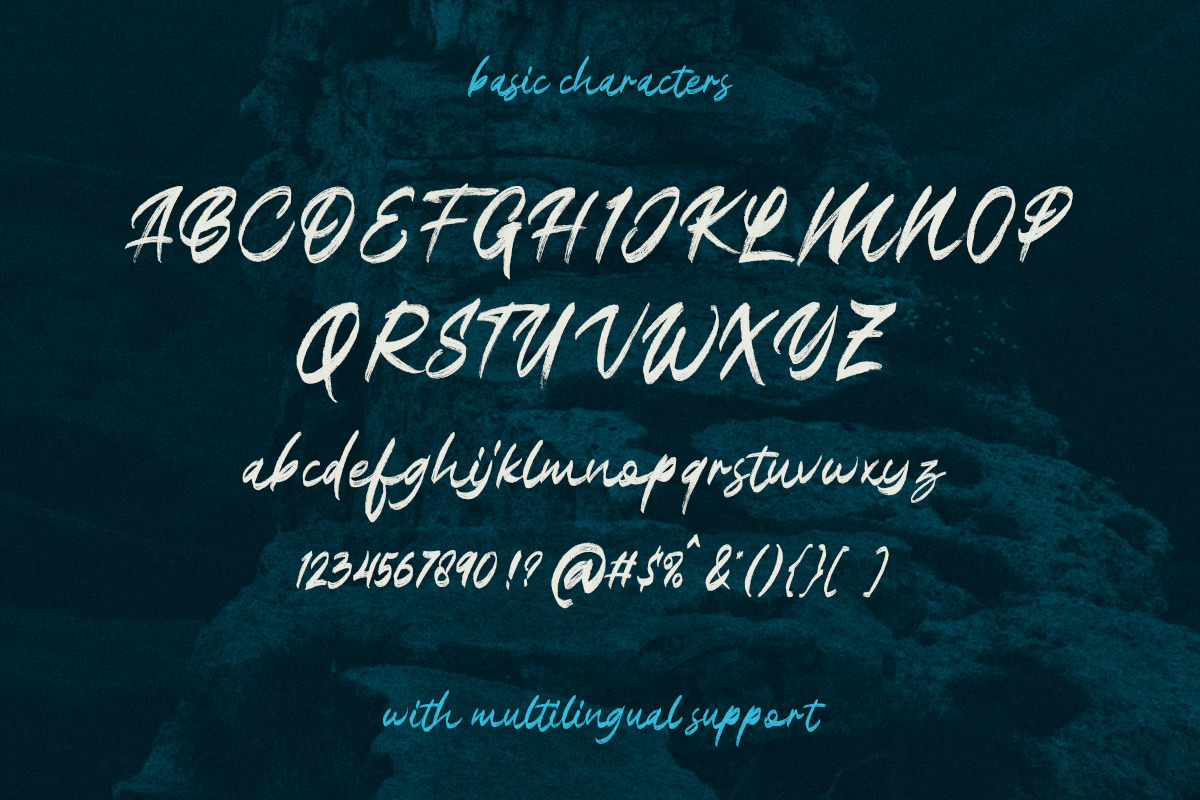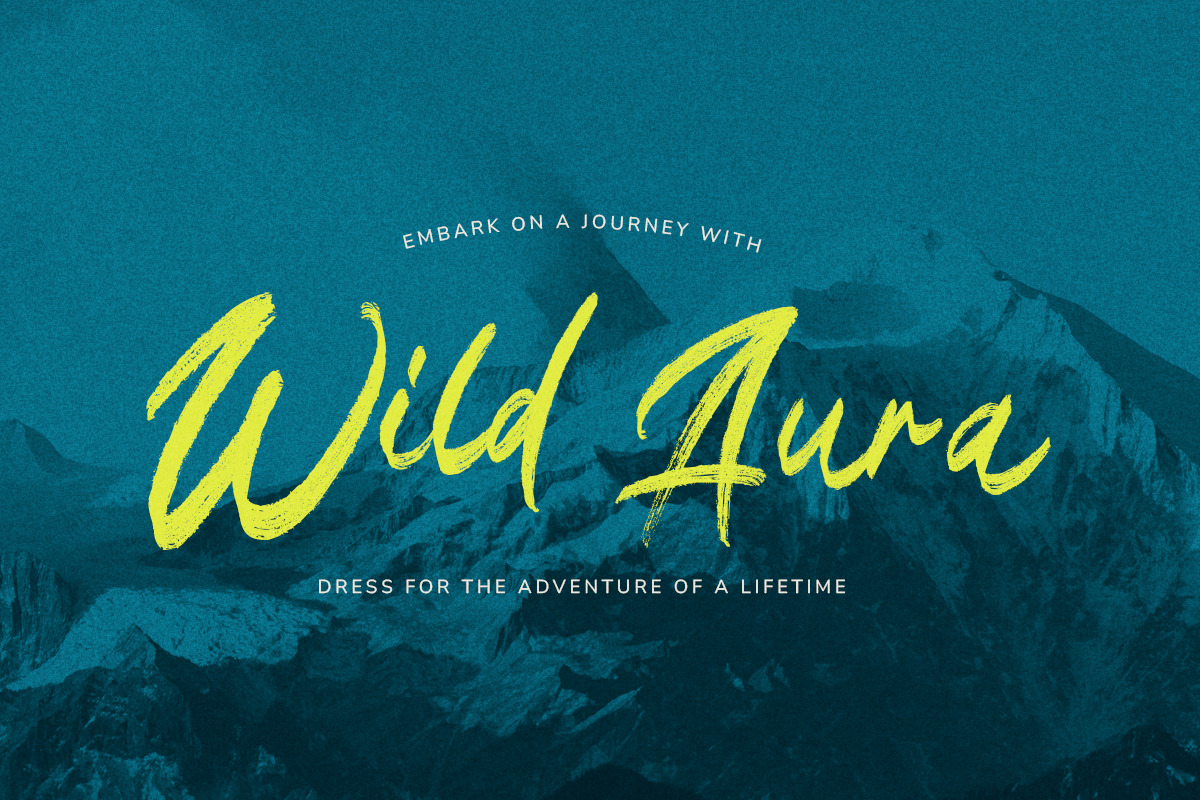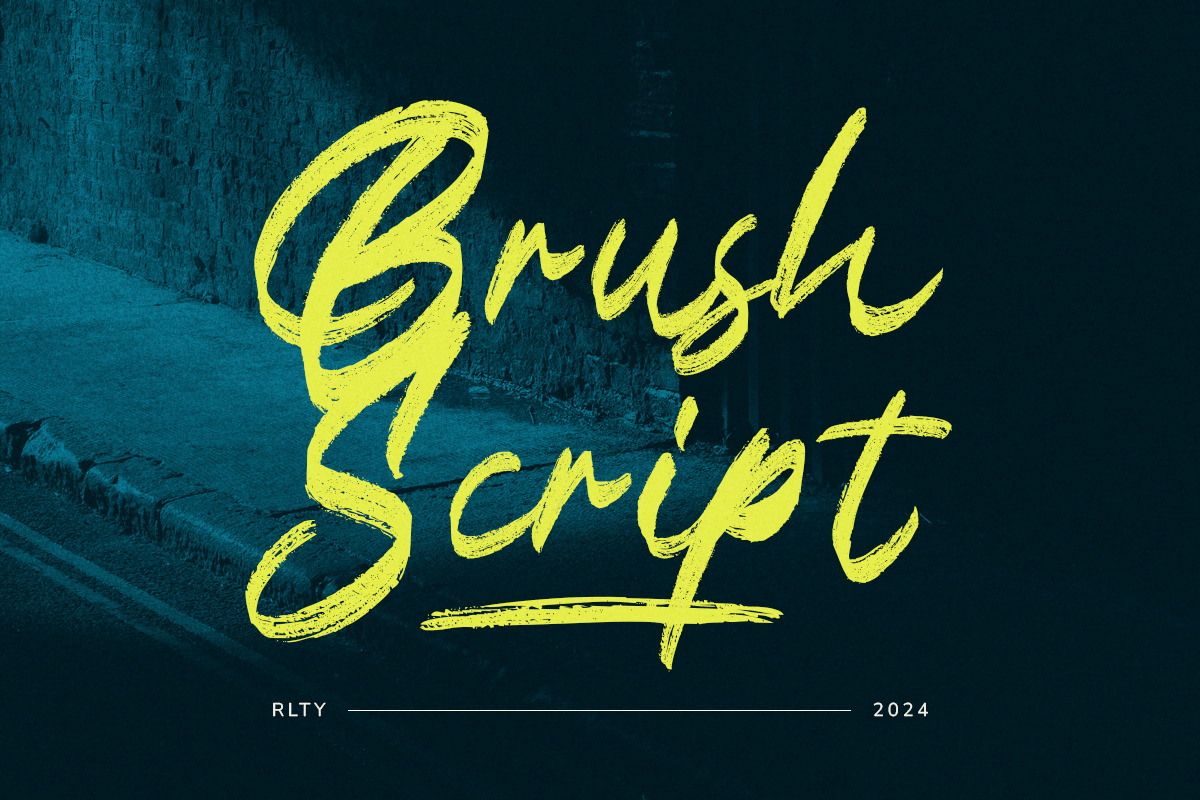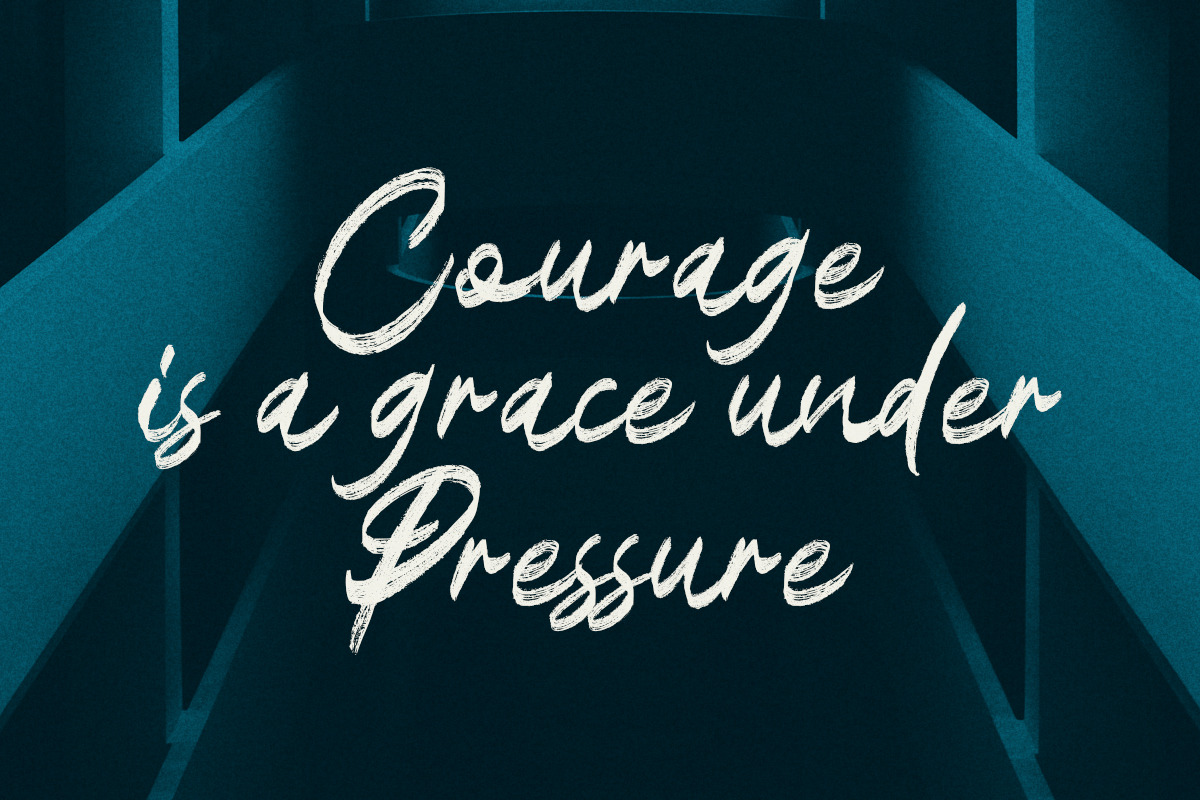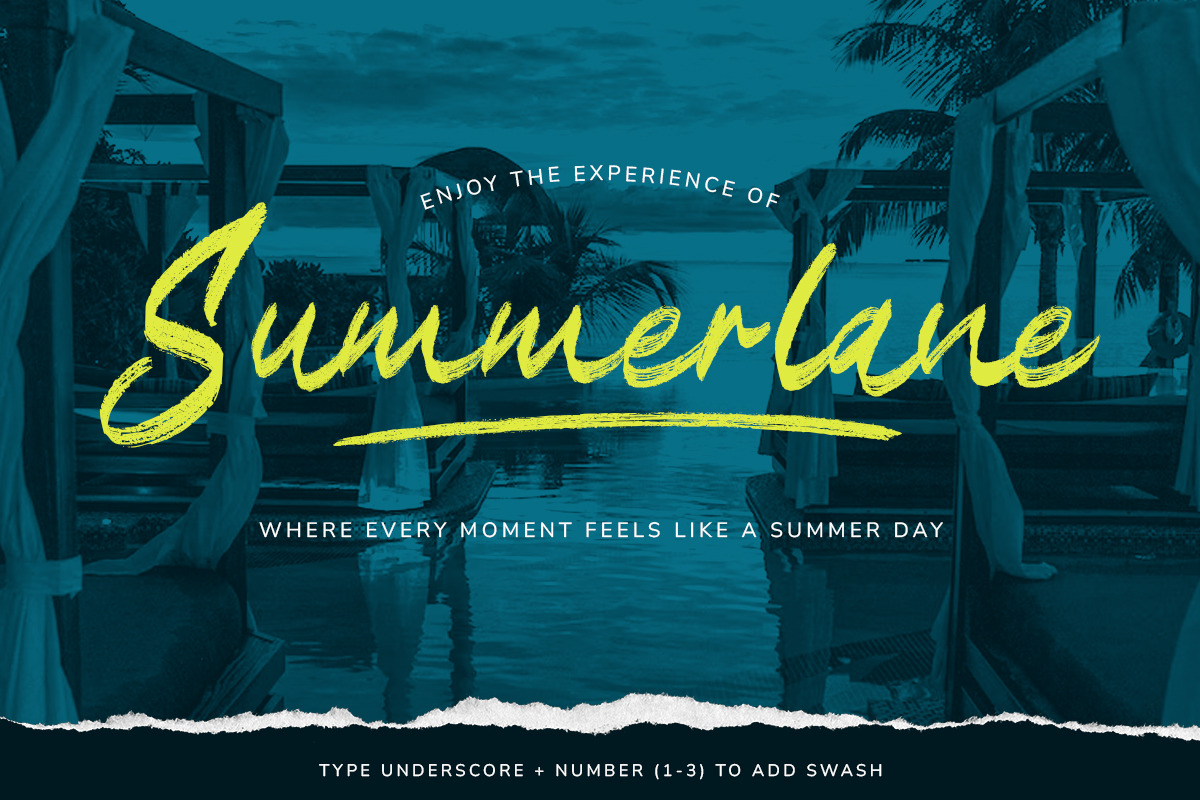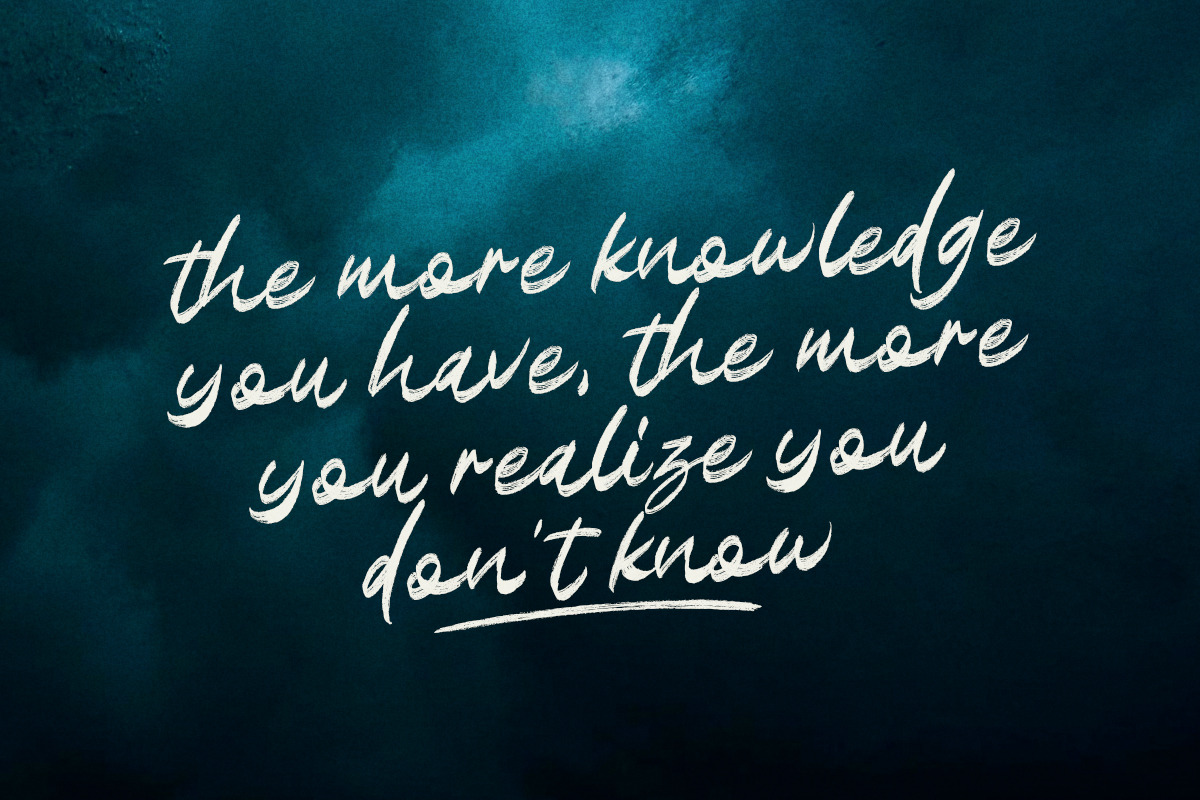
Black Paladins Brush Script
Introducing Black Paladins, a brush script font that effortlessly combines boldness with elegance. This font is not just a typeface; it's a statement. With each stroke, Black Paladins brings an undeniable charisma to your design projects.
Embrace the raw and organic feel of hand-crafted brush strokes, adding a touch of authenticity to your creations. Perfect for a variety of applications, from branding to social media posts, Black Paladins is designed to make your text stand out.
Dive into a world where traditional meets contemporary, and where each character carries a unique flair. Elevate your designs with the distinctive personality of Black Paladins – a font that goes beyond letters; it tells a story. Unleash creativity with every curve and line; Black Paladins is not just a font; it's your artistic companion.